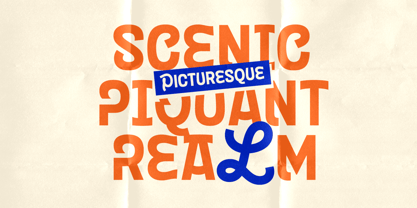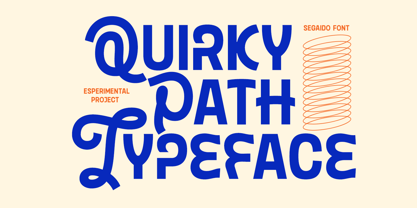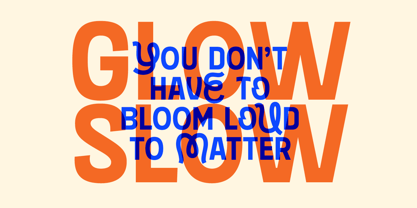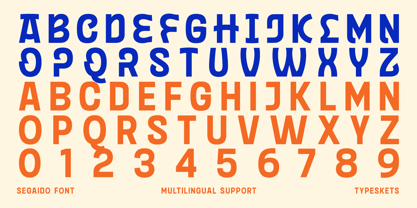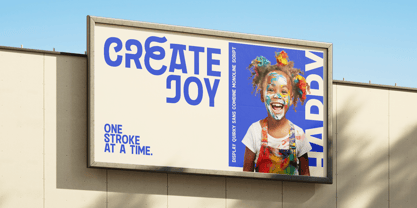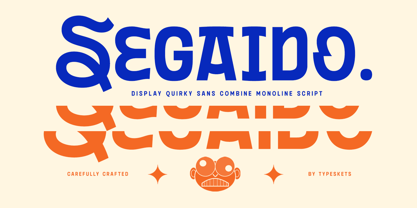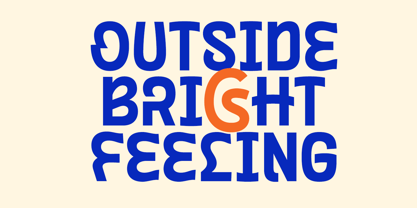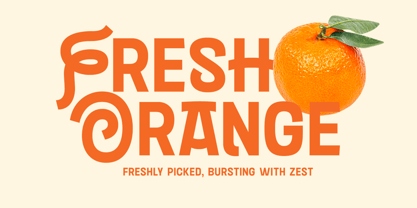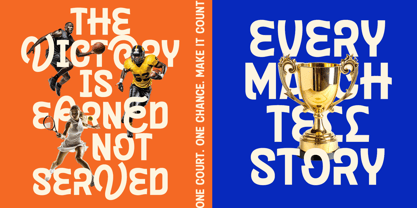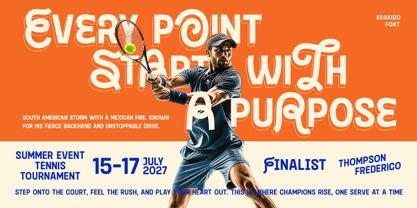
Segaido
by Typeskets
The Segaido Font Family was designed by Sahrul Hidayat and published by Typeskets. Segaido contains 2 styles and family package options.
Segaido is a quirky display sans serif that blends monoline-inspired construction with bold, geometric letterforms. Its expressive curves, unconventional shapes, and playful proportions give Segaido a distinctive personality—perfect for designers looking for a font that feels creative, fun, and modern. The letterforms are built with a balance of smooth monoline strokes and structural display elements, creating a unique visual rhythm. This makes Segaido ideal for large-scale typography where impact and style are essential. From creative branding to expressive posters, packaging, editorial titles, and experimental graphic design, Segaido brings a fresh and character-driven voice to any project. With its strong identity and unmistakable style, Segaido encourages designers to explore imaginative compositions and dynamic typographic layouts. A carefully crafted typeface designed for bold statements, modern communication, and standout visual expression.